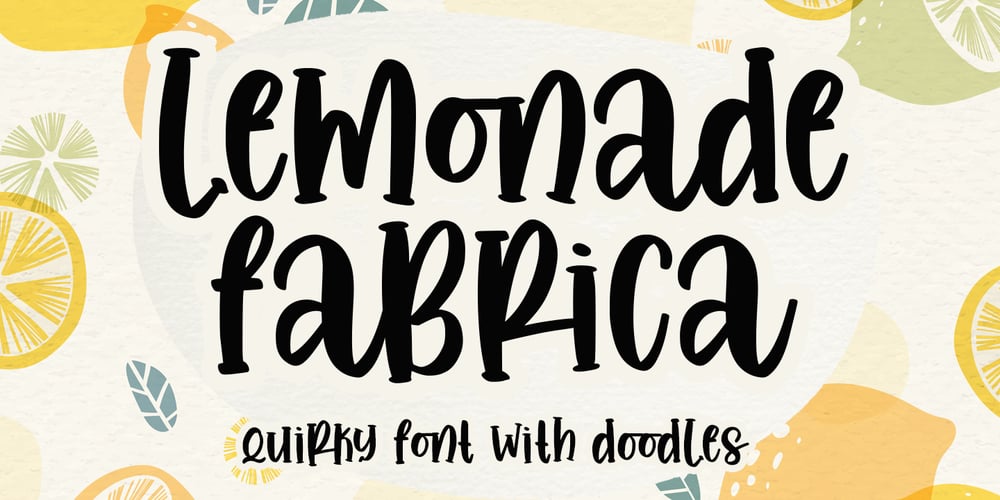
Lemonade Fabrica Font Family was designed by Abo Daniel and published by Abo Daniel. Lemonade Fabrica contains 2 styles and family package options. introducingLEMONADE FABRICA -the quirky handwritten font-It is a beautiful quirky font that perfect for a lettering project like cutting vinyl, silhouettes, t-shirt design, mugs, advertisements, book covers, posters, business cards, social media, and more.The doodles make this font so perfect.Features:- Uppercase- Lowercase- Number & Punctuations- Multilingual- Doodles- PUA encodedHope you love itRegards,Abo Daniel Studio